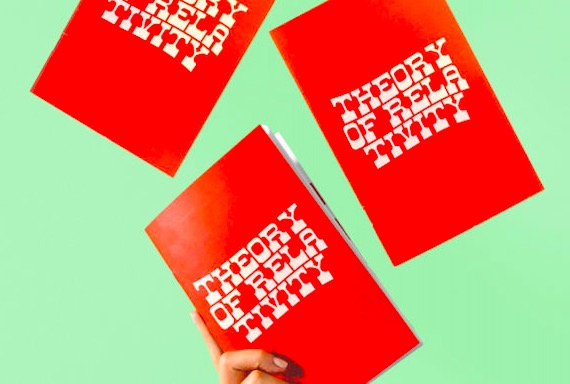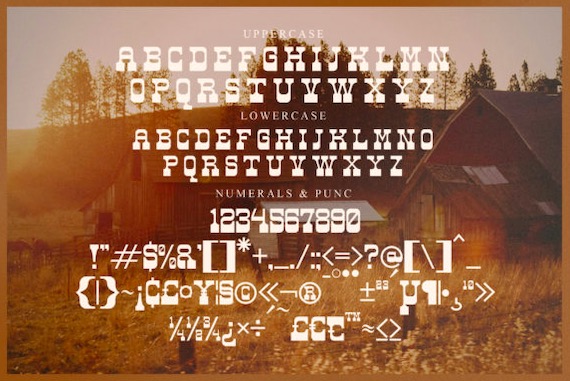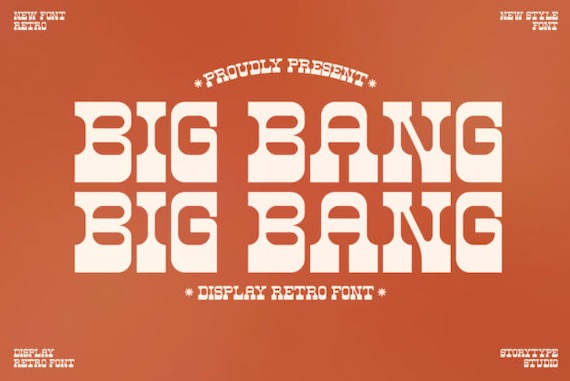
Big Bang will provide you with a different design method. Big Bang Font is a strong and modern serif typeface featuring a unique style and modern look. This Big Bang Font is very perfect for an elegant & luxury logo, book or movie title design, fashion brand, magazines, clothes, lettering, quotes, and so much more.
Big Bang Display Font